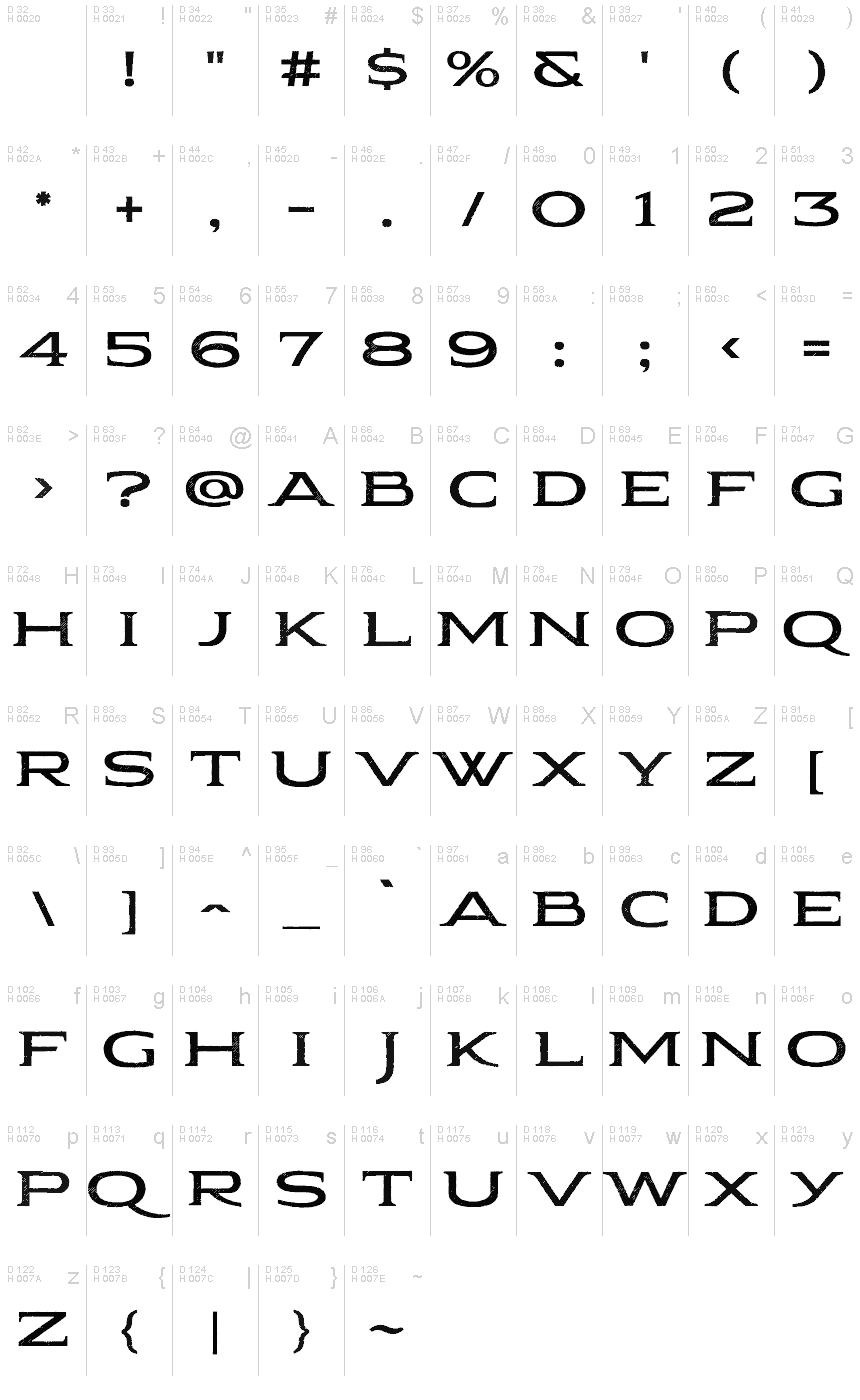
Pauaque Serif & Sans comes in clean and rough versions. Use it for titles, logos and short text or pair it with your favorite script font. Some subtle alternates can be obtained using uppercase/lowercase.